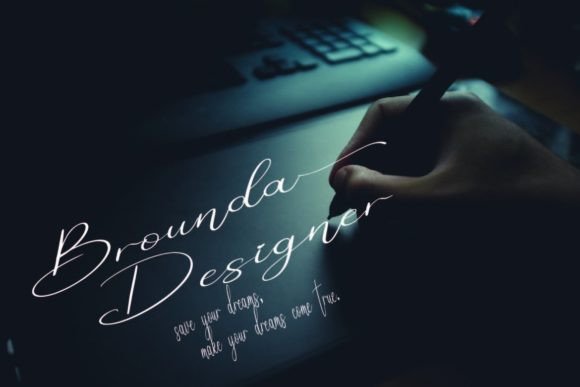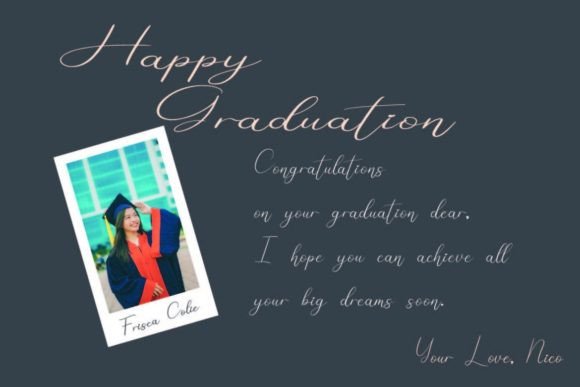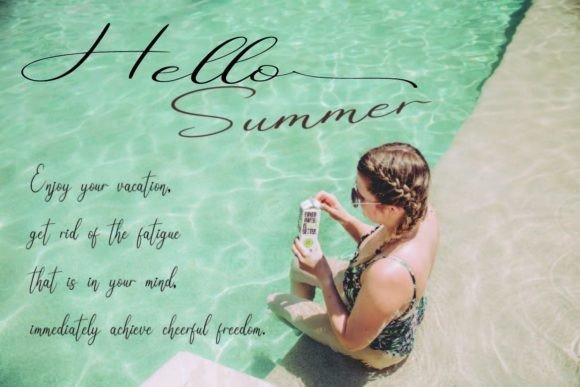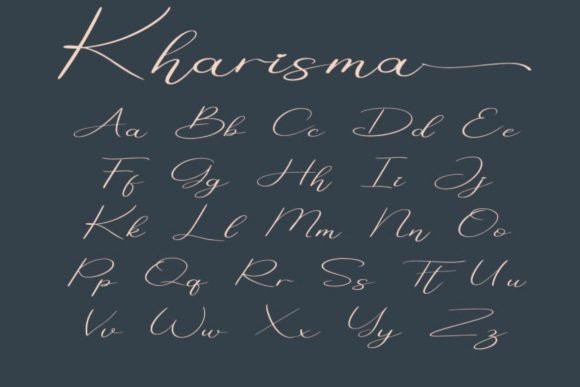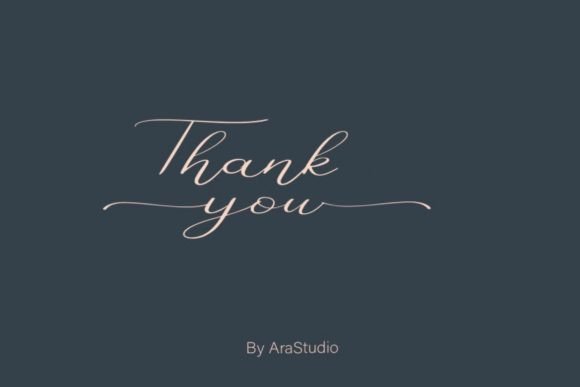
Kharisma Font
About Kharisma Font
Step into the realm of elegance and sophistication with “Kharisma,” a modern calligraphy script font designed to elevate your creative projects. This exquisite font is perfect for a variety of applications, including wedding invitations, calligraphy logos for branding, elegant websites, personalized gifts, social media posts, and anything else your heart desires.
The allure of Kharisma lies in its modern calligraphy style, which effortlessly combines grace and contemporary flair. Each stroke is a testament to the font’s craftsmanship, contributing to an overall aesthetic that exudes sophistication. Whether you’re crafting a wedding invitation that demands a touch of romance or designing a logo that requires a blend of elegance and modernity, Kharisma is tailor-made for such endeavors.
The versatility of Kharisma extends across a spectrum of creative projects. Its ability to evoke a sense of refined beauty makes it suitable for a wide range of applications, giving you the freedom to bring your creative visions to life. Personalize your gifts, curate captivating social media posts, or add an elegant touch to your website with the seamless charm of Kharisma.
Consider Kharisma not just as a font but as a design companion that lends an air of sophistication to your creative pursuits. Its modern calligraphy script is not just a typeface; it’s a statement that speaks to your commitment to elegance and style. Let Kharisma be the font that brings your vision to life with grace and contemporary allure.